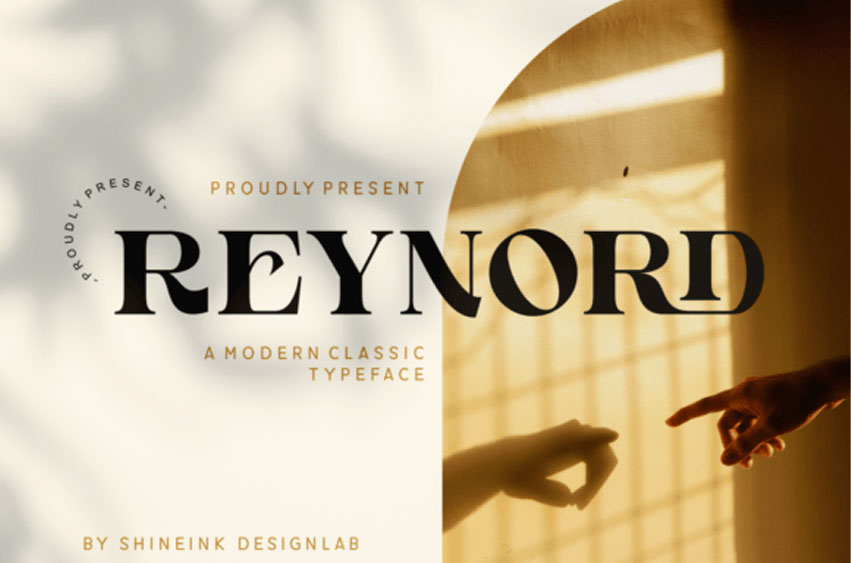
Reynord Font
Reynord Font is an exquisite and modern serif font with an impeccable look.
Use it to create outstanding branding projects, logos, business cards, invitation cards, and other creative designs.